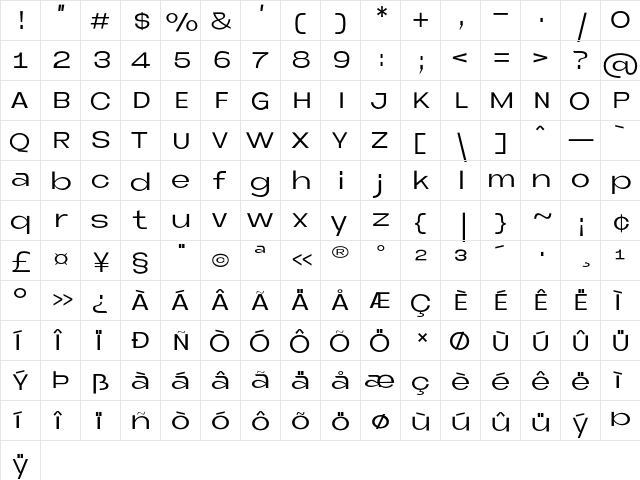
Neue Metana Regular
| Designer | Hendra Maulia , Aulia Rahman |
Design Context for Neue Metana Typeface
Neue Metana is a composed and adaptable typeface that performs quietly and consistently across a wide range of design contexts.